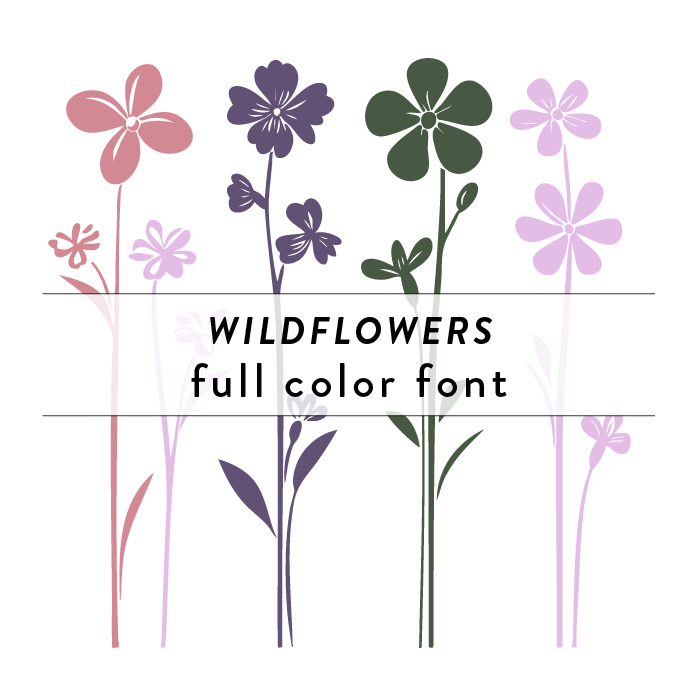
Wildflowers Full Color Font is a whimsical and vibrant font design inspired by blooming garden flowers. With intricate details and a handcrafted feel, this font is perfect for adding a touch of nature to any project. Ideal for craft projects, invitations and home decor. This font is a OTF craft font that will appear in color only when used with the silhouette software.